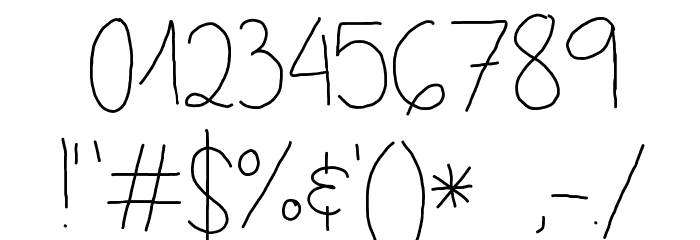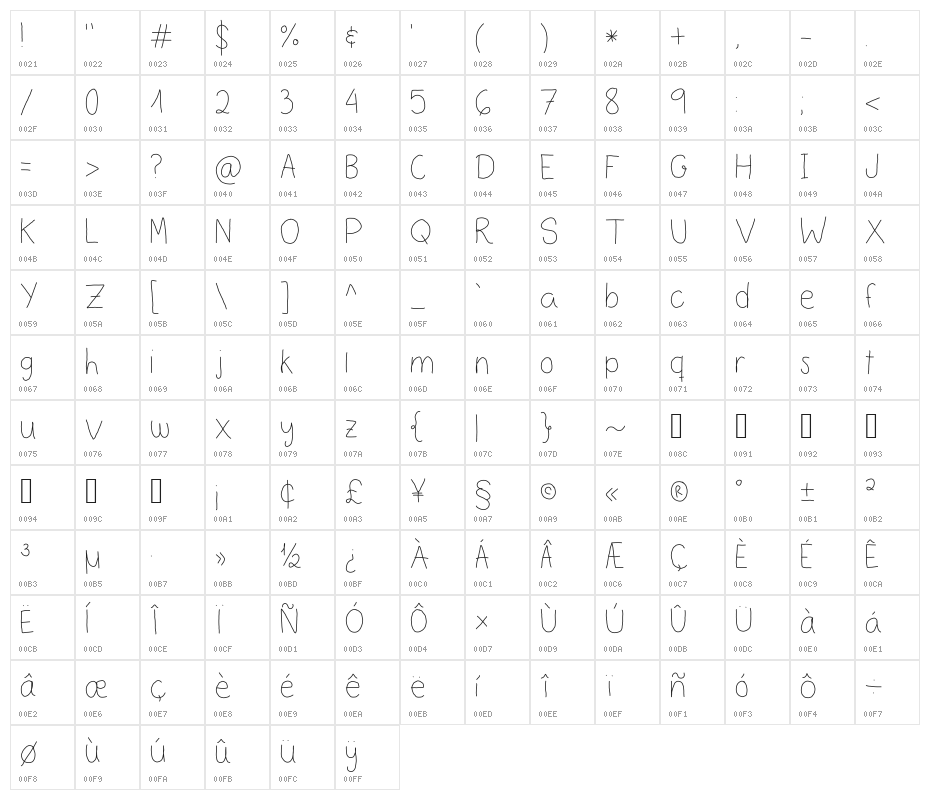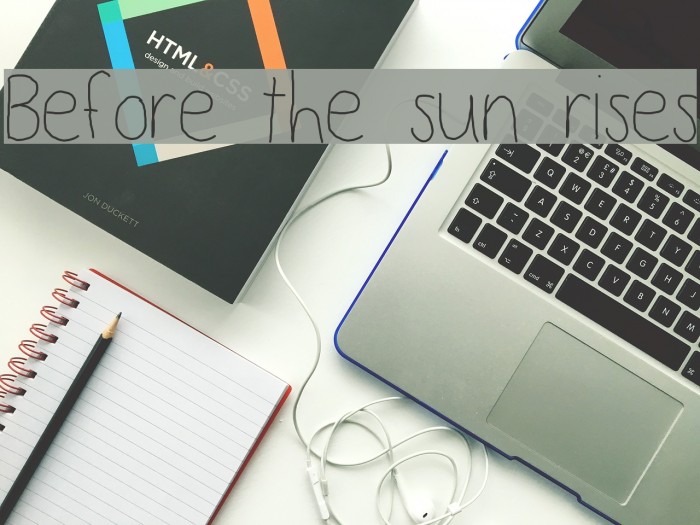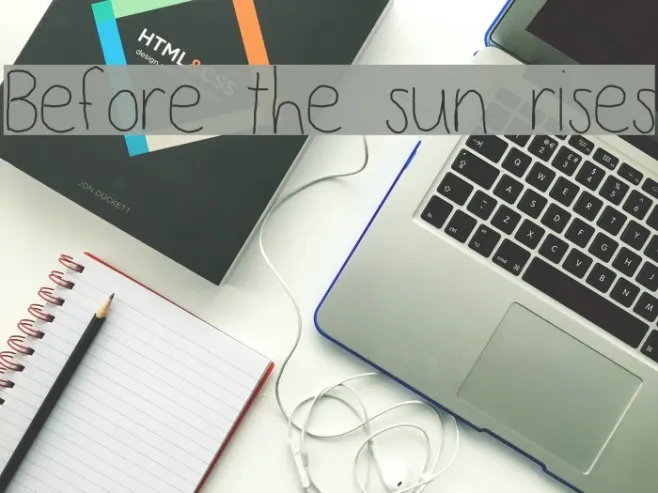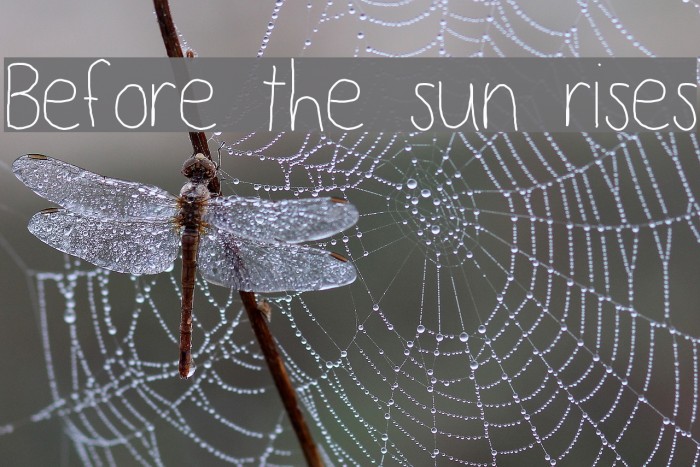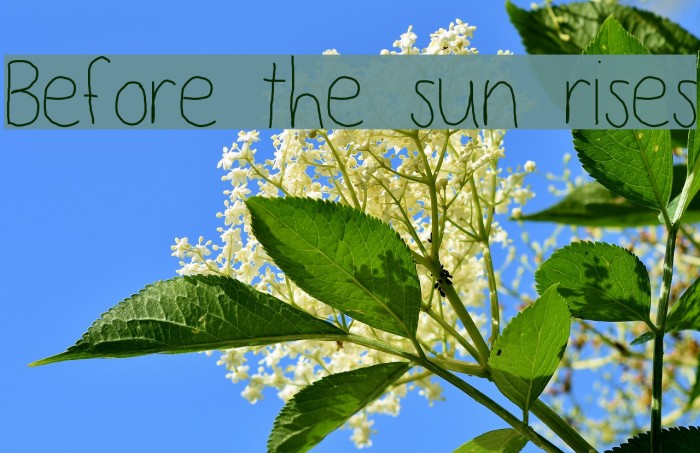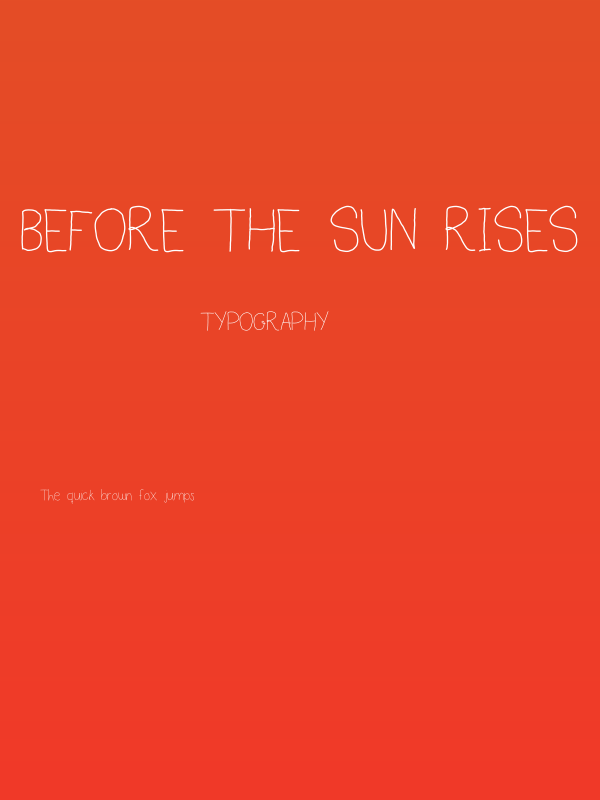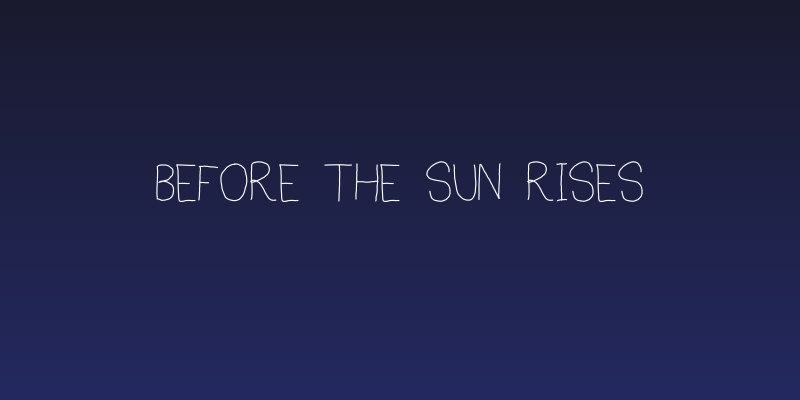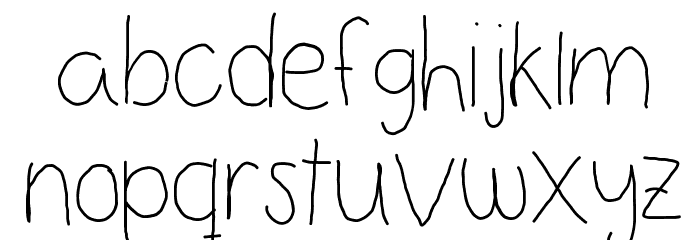
Before the sun rises Font
Before the sun rises Description
This font features a playful, handwritten style with a casual and informal appearance. The characters are slightly irregular, giving it a personal and human touch. The strokes are thin and consistent, with a slight wobble that adds charm and uniqueness. The uppercase letters are tall and narrow, while the lowercase letters maintain a similar width, creating a cohesive look. The numbers and special characters follow the same whimsical style, making this font ideal for projects that require a friendly and approachable feel.
| Use Case | Headlines, Invitations, Personal projects |
| Proposed Projects | Ideal for greeting cards, children's books, personal blogs, and informal branding. |